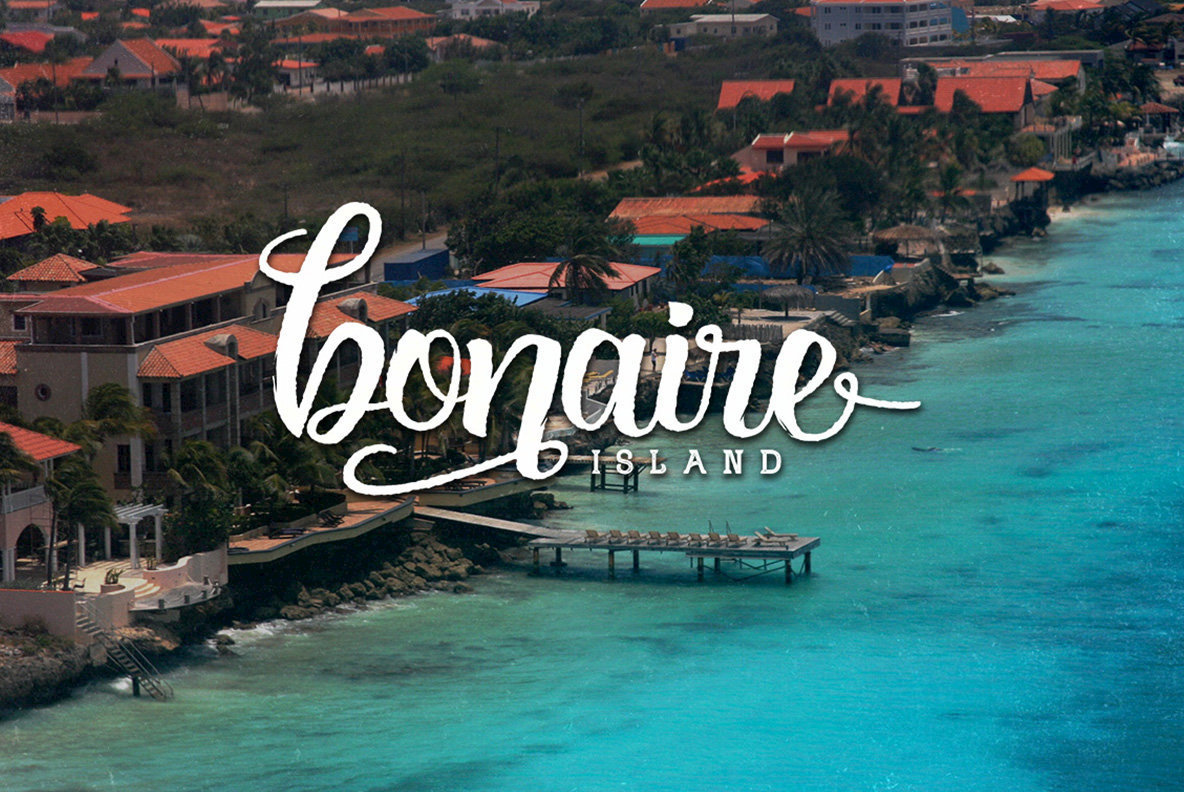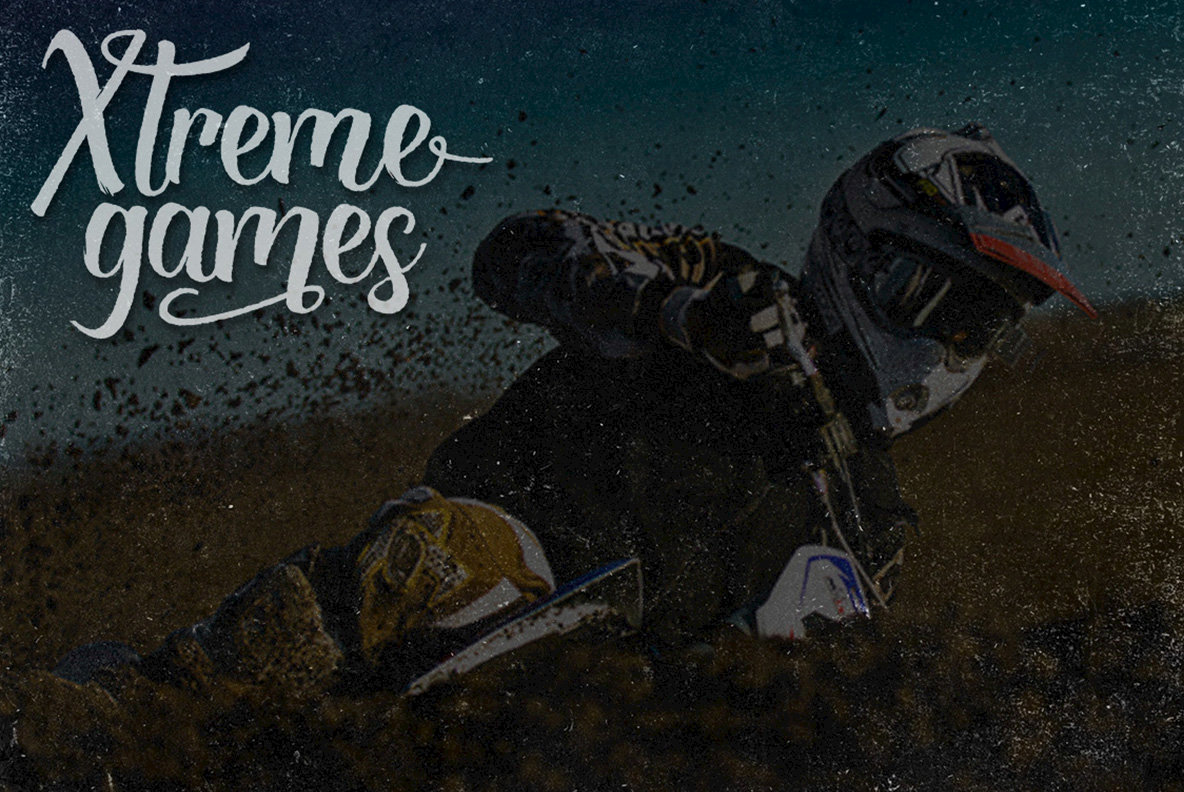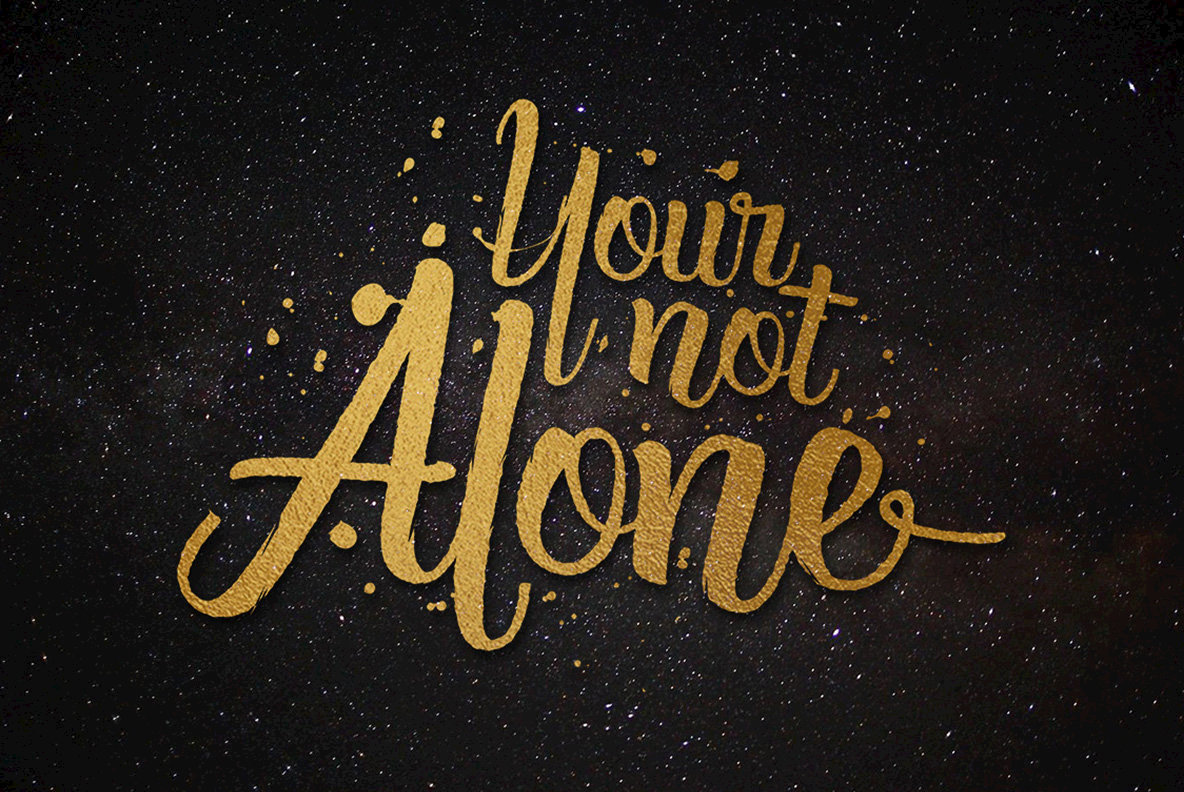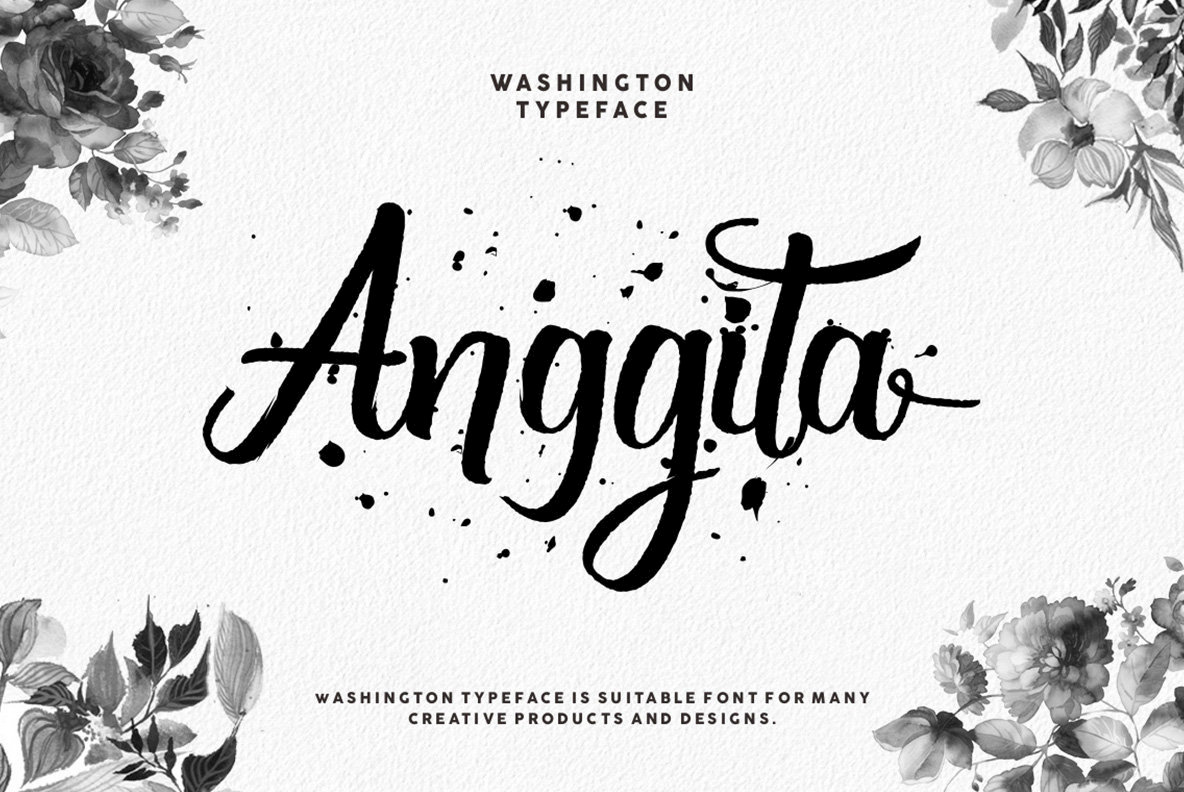
(Update) Washington is script designed by Rvq Typefoundry that contains an elegant and vintage styled character set. To create a beautiful combination of letters simply mix the uppercase and lowercase along with the alternative glyph options.